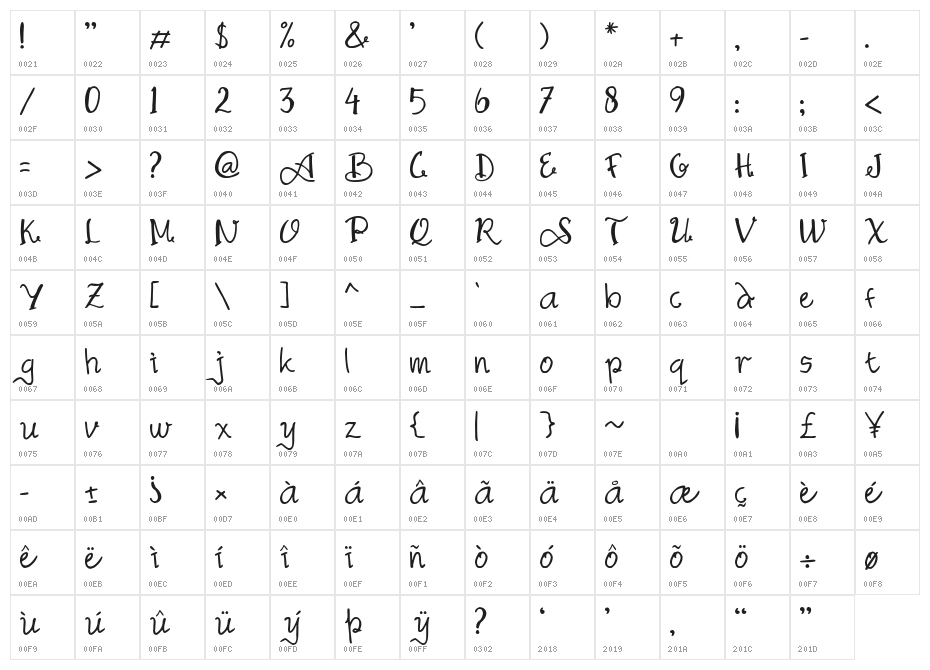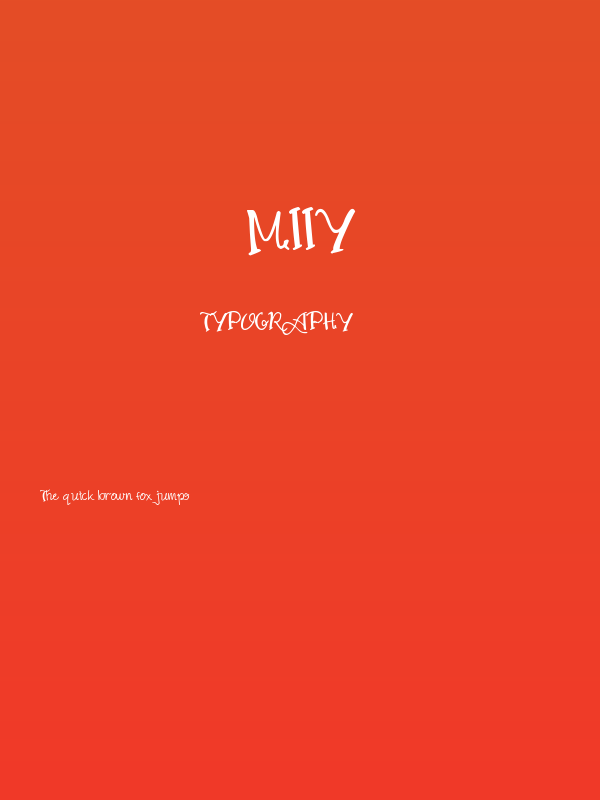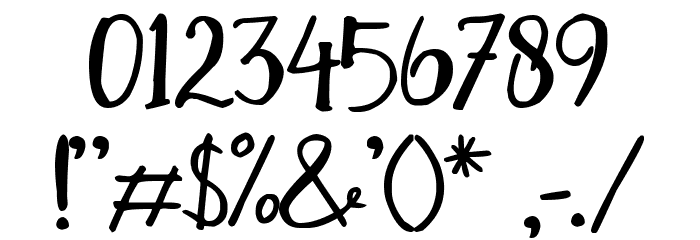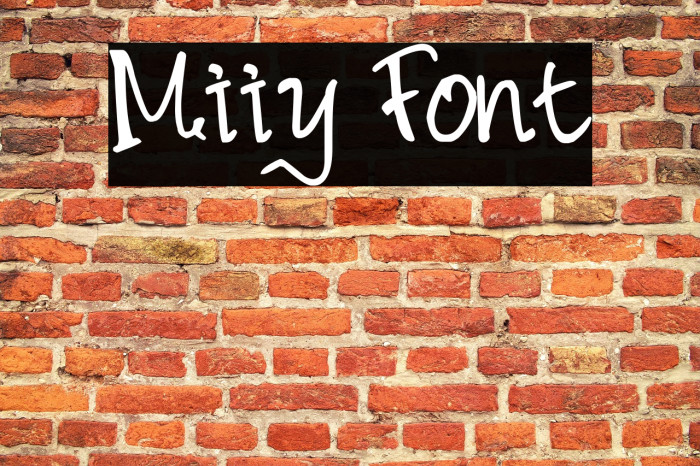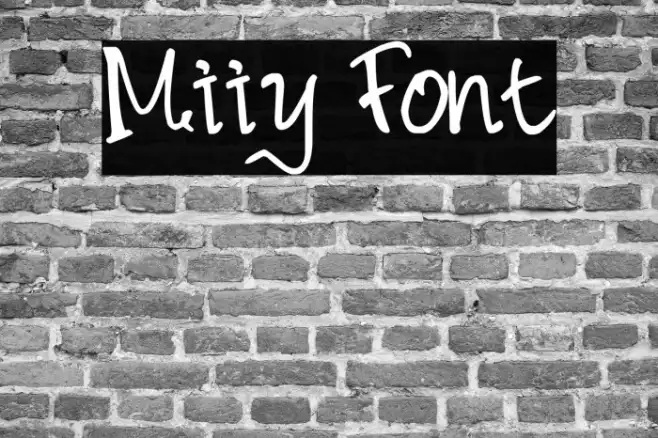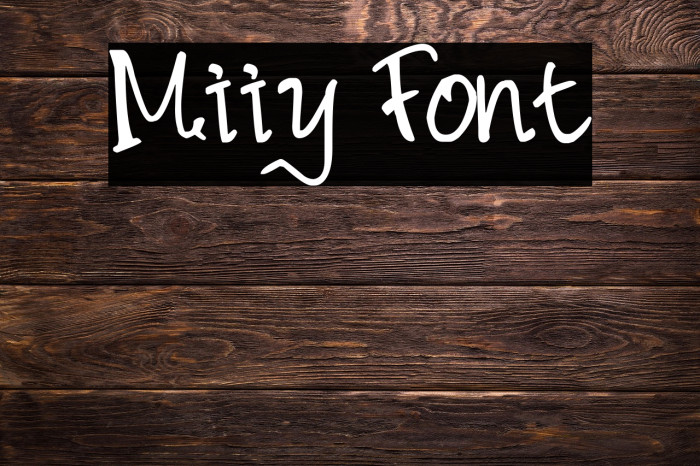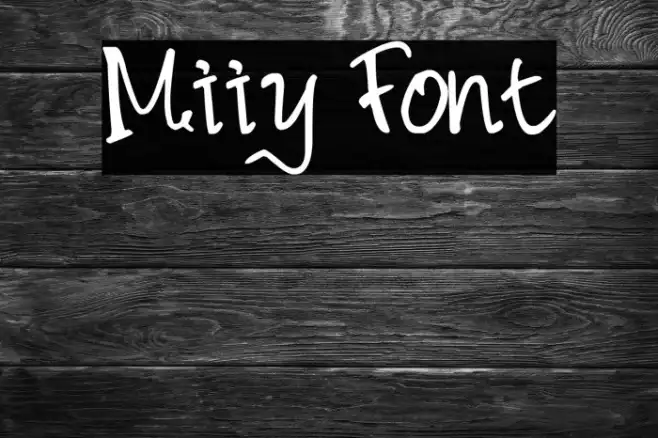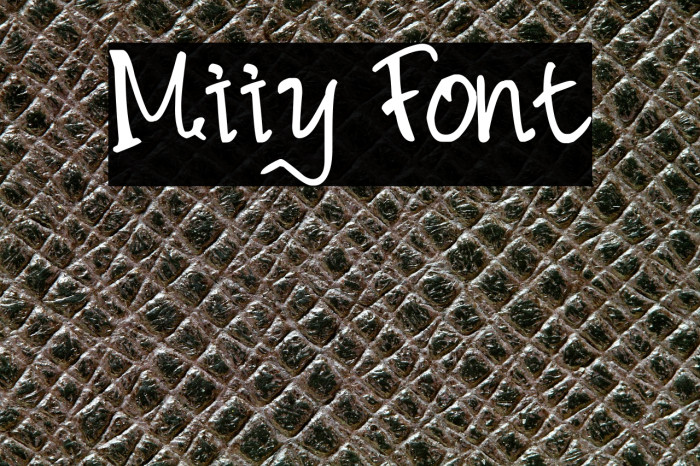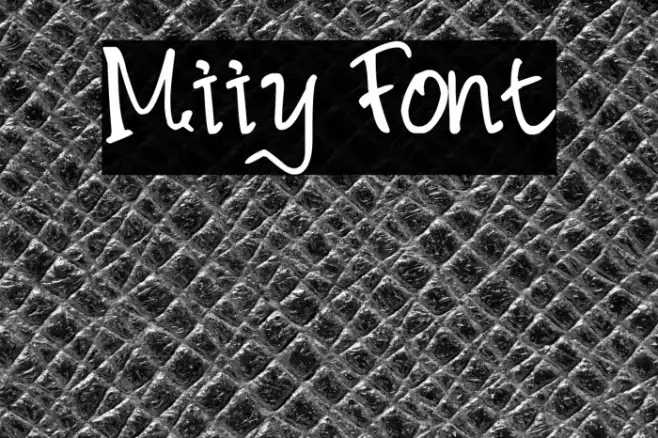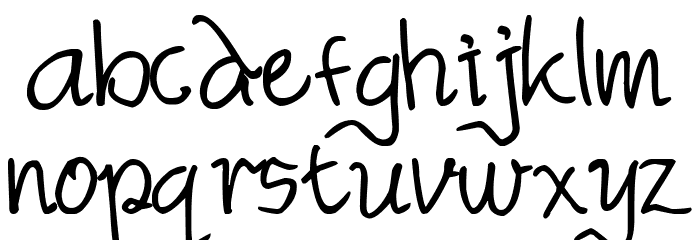
Miiy Font
Miiy Description
This font features a playful and artistic script style with a hand-drawn appearance. The uppercase letters are characterized by elegant loops and flourishes, adding a whimsical touch. The lowercase letters maintain a consistent flow, with some letters featuring unique, exaggerated curves. Numbers are bold and slightly irregular, complementing the overall artistic theme. Special characters are creatively designed, enhancing the font's decorative appeal. The strokes vary in thickness, providing a dynamic and lively contrast that captures attention.
| Proposed Projects | Ideal for creative projects such as greeting cards, invitations, logos, and artistic posters. |